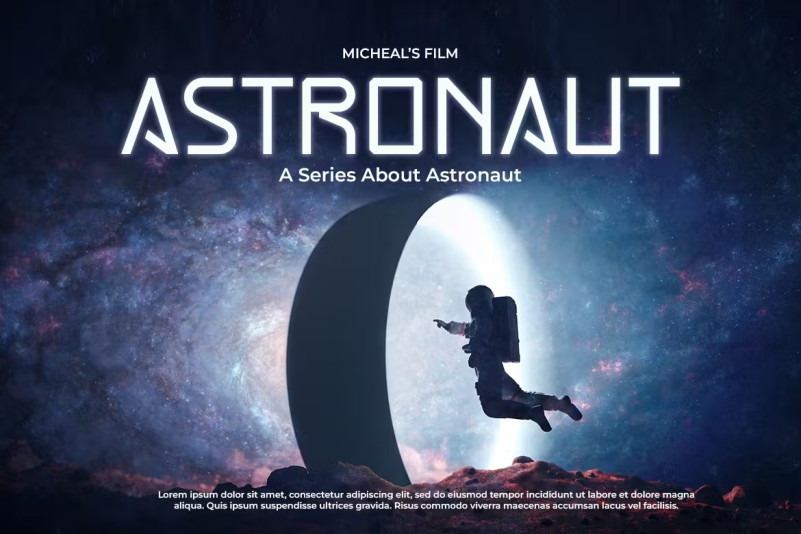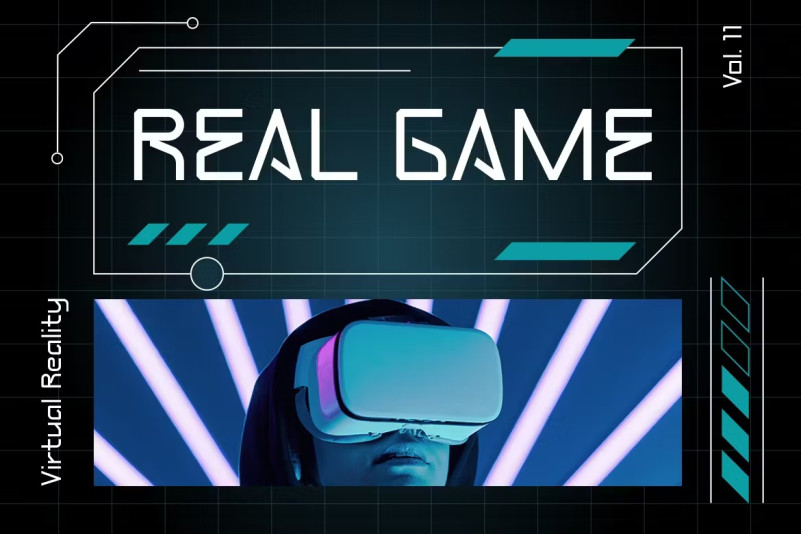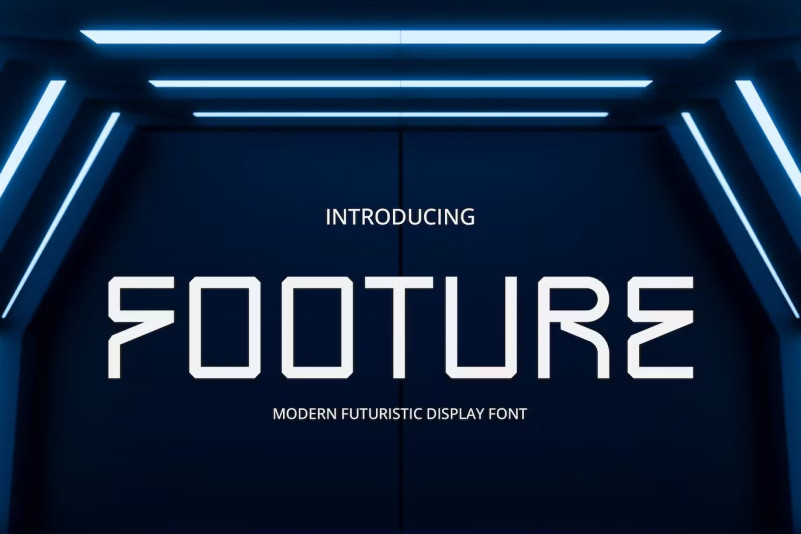
Footure Font
Footure Font is a futuristic font designed for those looking for a sleek and modern look for their projects. With its bold, clean lines, this font embodies the essence of technology and science, making it perfect for futuristic and sci-fi themed projects. The design of this font is inspired by the idea of ​​space exploration and advancements in modern technology, resulting in a typeface that is not only futuristic but also innovative.
Whether designing a poster for a sci-fi movie, creating a futuristic website, or giving your social media pages a futuristic feel, Footure is the perfect font for your needs. Its clean, sophisticated look is perfect for capturing the essence of the future, while its versatility makes it suitable for a wide range of projects.
Footure comes with a full set of characters, including uppercase and lowercase letters, numbers, and symbols, making it easy to use and easy to customize to your specific needs. With its modern and futuristic look, Footure is the ideal choice to create a bold and innovative project that stands out.